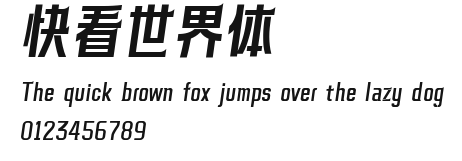
快看世界体 Preview
• Font Name: 快看世界体
• Full Font Name: 快看世界體 標準
About 快看世界体.ttf
快看世界体.ttf is a modern, elegant sans-serif font designed for ultimate readability and visual harmony. Perfect for branding, headlines, web design, and print materials.